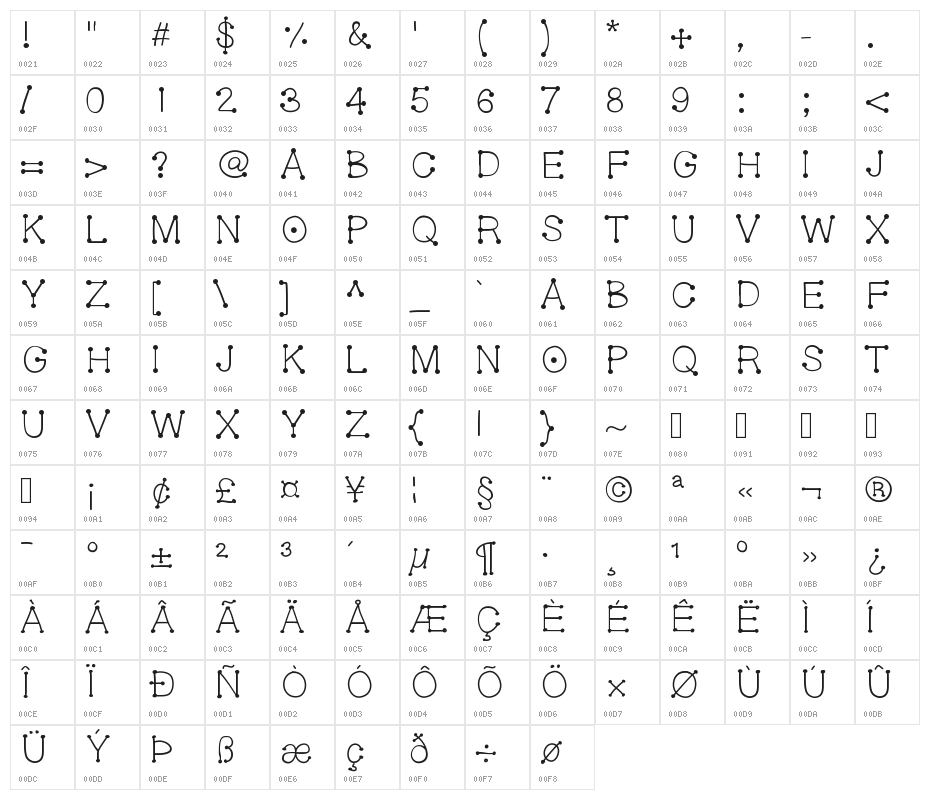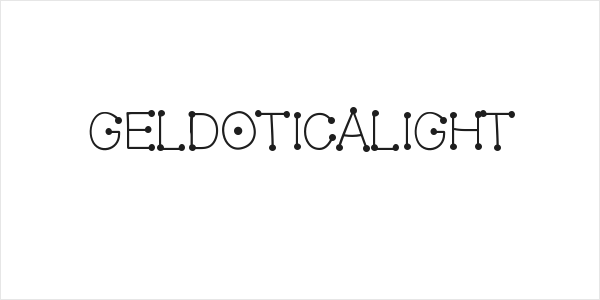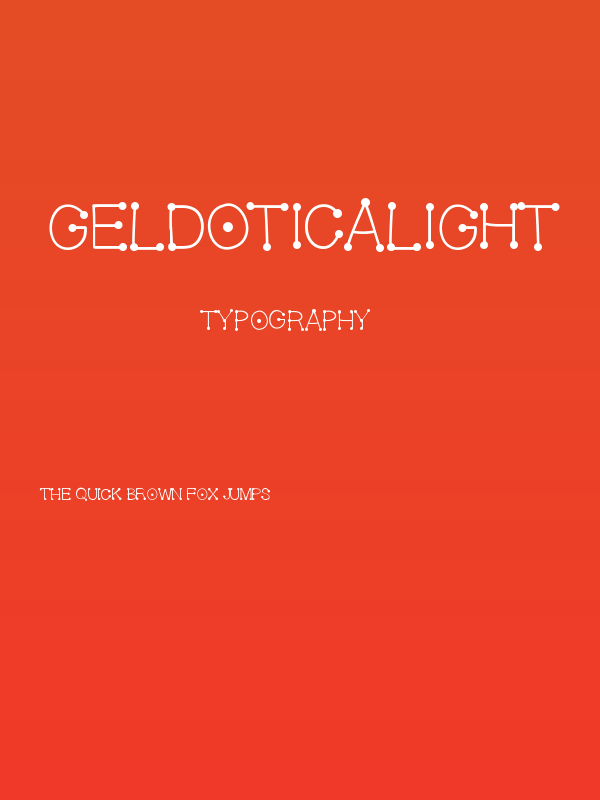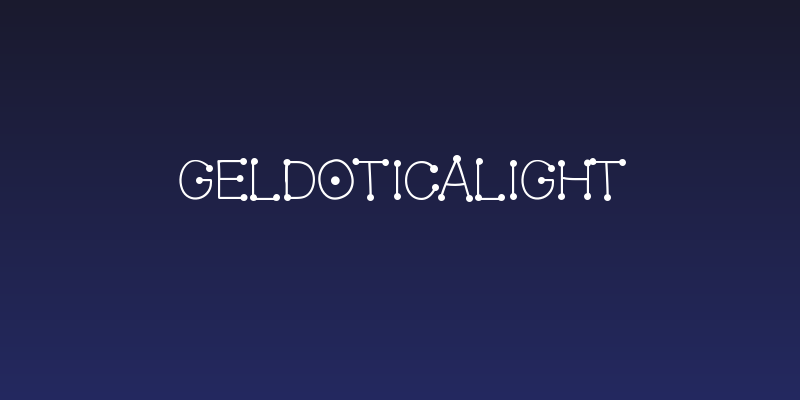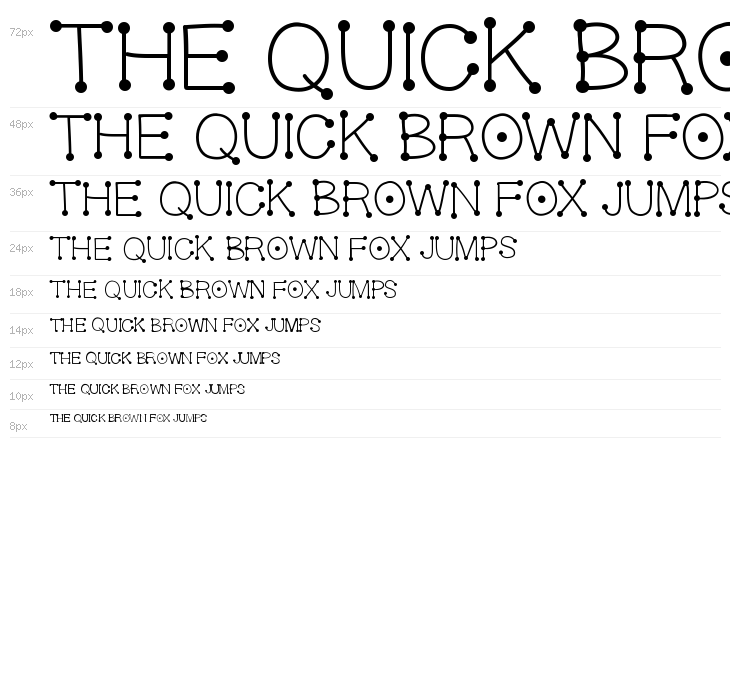
GelDoticaLight Font
GelDoticaLight Description
This font features a playful and unique design, characterized by its dotted elements connecting each stroke. The letters are rounded and evenly spaced, giving it a whimsical and approachable appearance. The dots add a decorative touch, making it stand out as a display font. It maintains a consistent stroke width throughout, ensuring readability while still being visually interesting. The font includes both uppercase and lowercase letters, numerals, and a variety of special characters, all designed with the same dotted motif. Its distinct style makes it suitable for creative and informal projects.
| Proposed Projects | Ideal for children's books, playful branding, event invitations, and creative posters. |